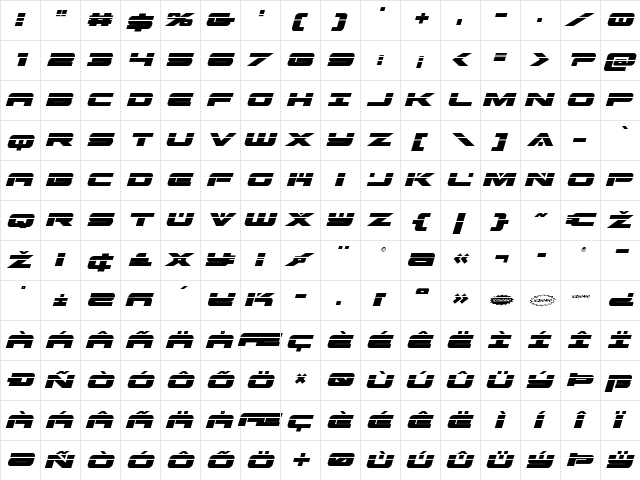
Predataur Laser Italic Italic
Design Context for Predataur Laser Italic Typeface
Predataur Laser Italic is a composed and adaptable typeface that performs quietly and consistently across a wide range of design contexts. The slanted form adds forward momentum and visual energy.